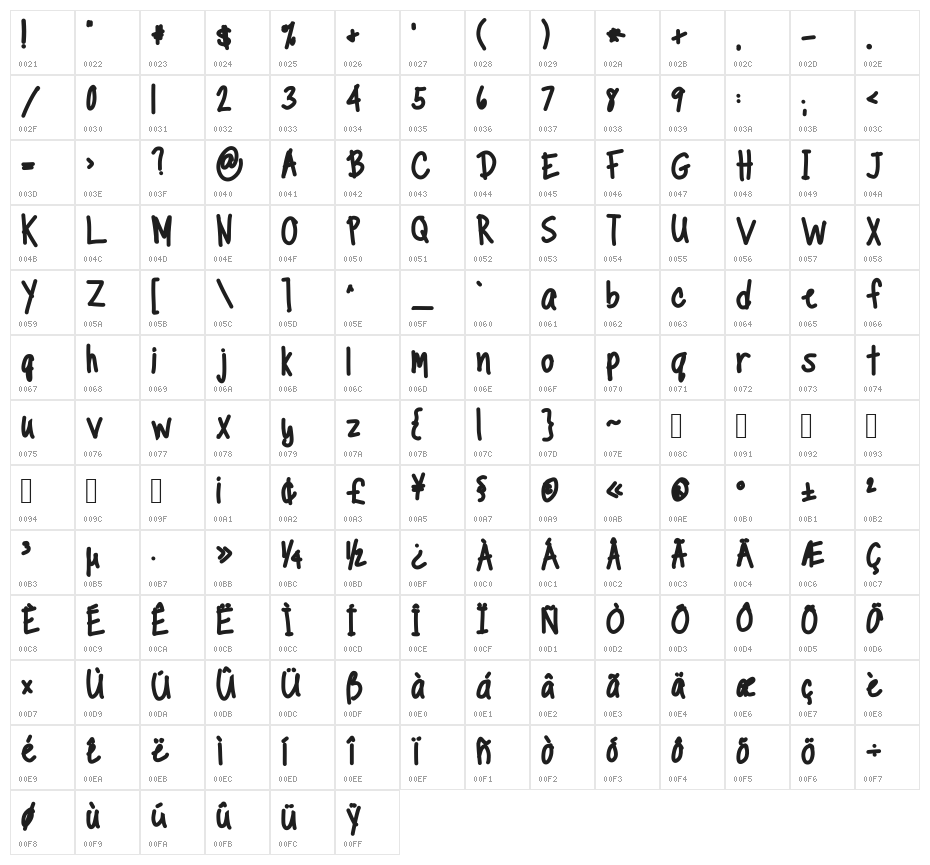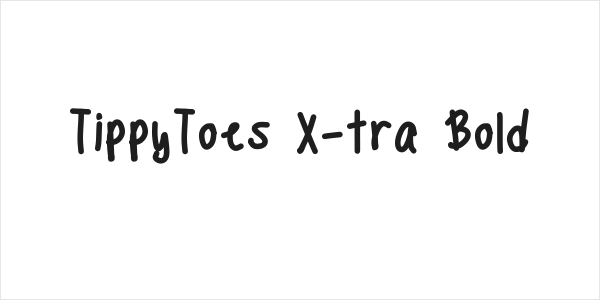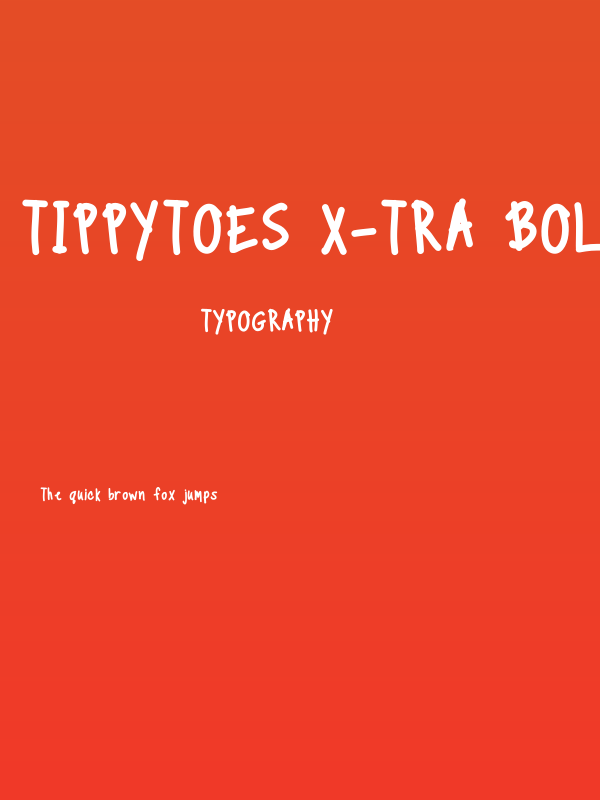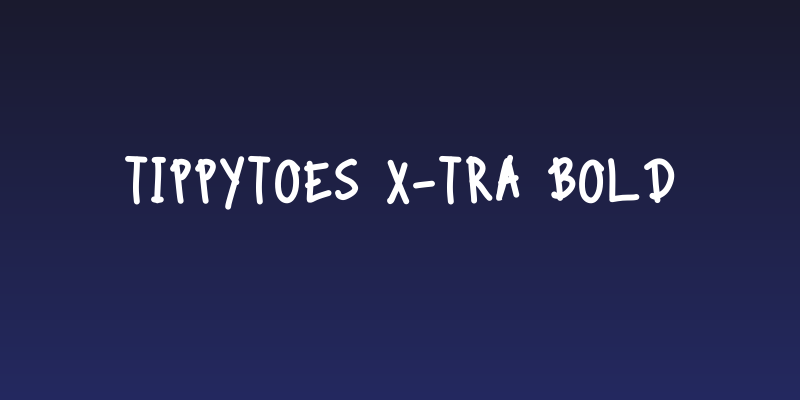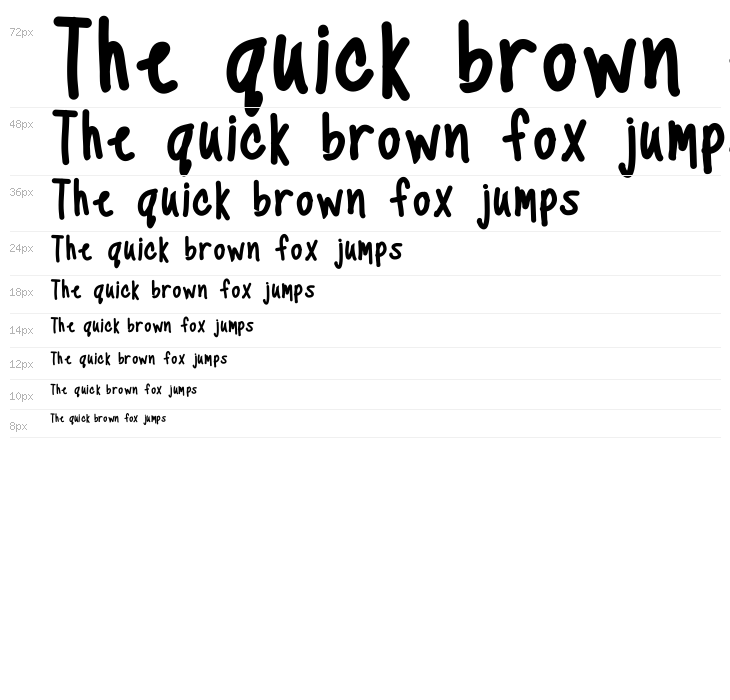
TippyToes X-tra Bold Font
TippyToes X-tra Bold Description
This font exhibits a playful and bold handwritten style, characterized by its thick strokes and casual appearance. The letters are slightly irregular, adding a whimsical and informal touch. The uppercase and lowercase letters maintain a consistent style, with rounded edges and a friendly demeanor. Numbers and special characters follow the same playful aesthetic, making the font suitable for projects that require a fun and approachable look. The overall design is cohesive, with a focus on readability despite its informal style.
| Proposed Projects | Ideal for children's books, playful branding, casual invitations, and social media graphics. |